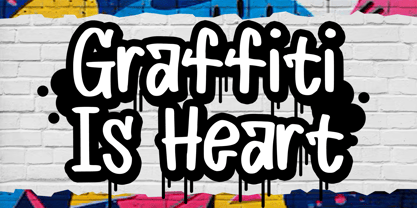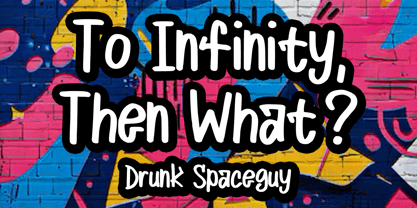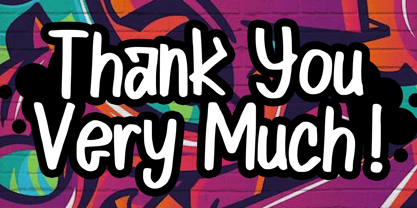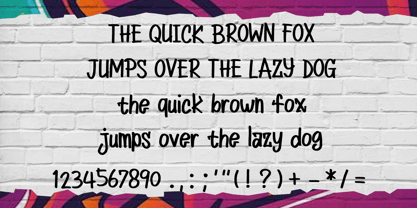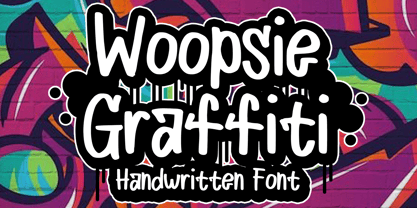
Woopsie Graffiti
by Mvmet
The Woopsie Graffiti Font Family was designed by Gabriel Valentinus and published by Mvmet. Woopsie Graffiti contains 1 styles. More about this family
Woopsie Graffiti is a fun and versatile graffiti street style tag font, inspired by 90s street graffiti and cartoons. You can use it for anything ranging from t-shirts and clothing, for your book designs, street art needs, greeting cards, stickers, posters, banners, or anything that needs a bold and fun touch. Try it to create fabulous designs and feel the fun and cheering vibes with it!
Designers: Gabriel Valentinus
Foundry: Mvmet